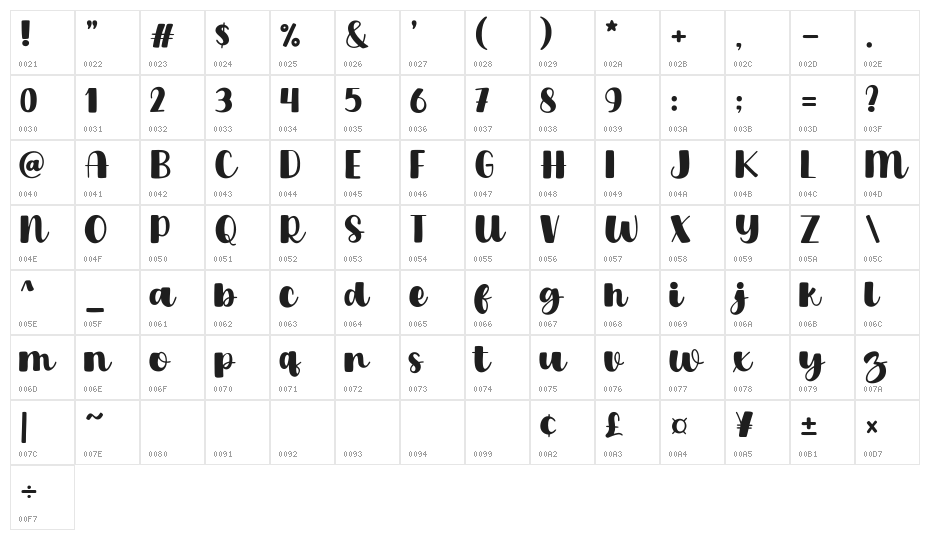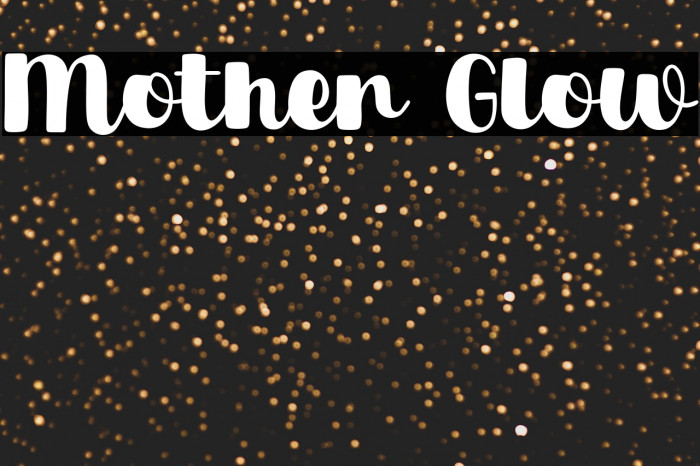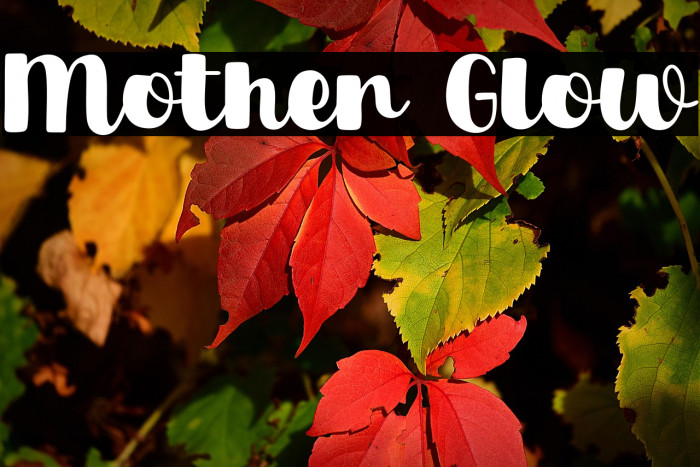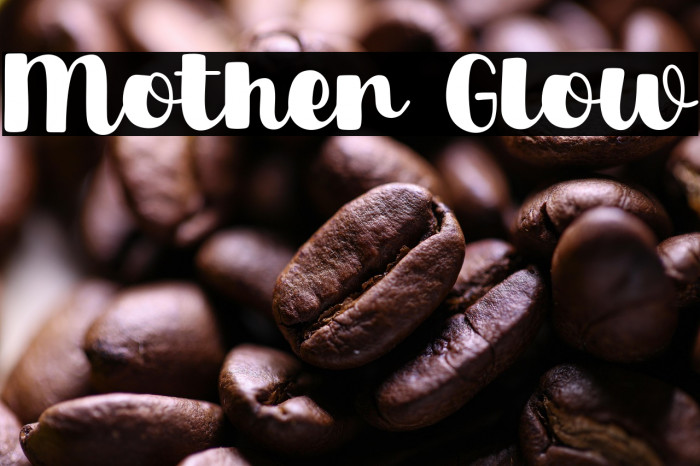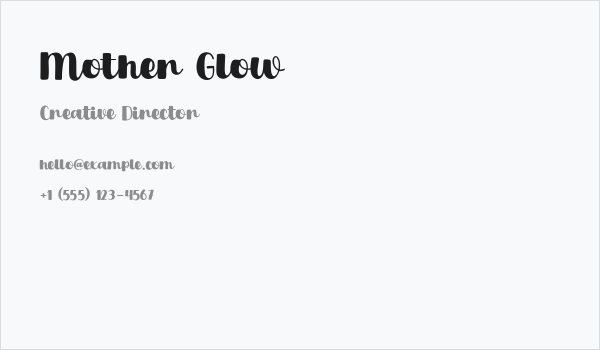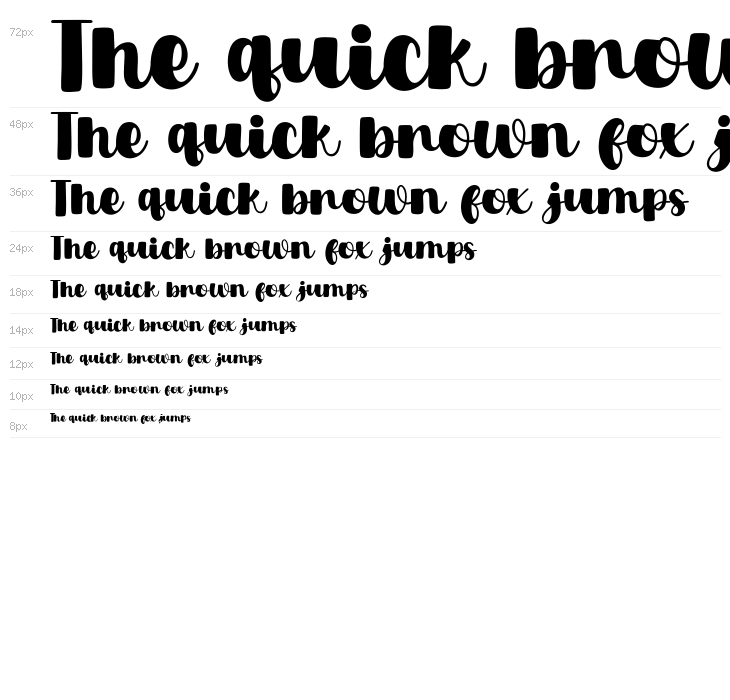
Mother Glow Font
Mother Glow Description
This font features a playful and bold script style with a modern twist. The characters are rounded and have a smooth flow, creating a sense of movement and energy. The uppercase letters are slightly more structured, while the lowercase letters exhibit a more cursive, handwritten feel. The numbers and special characters maintain the same boldness and playful style, ensuring consistency across all glyphs. This font is ideal for projects that require a friendly and approachable aesthetic.
| Proposed Projects | Ideal for branding, invitations, greeting cards, and playful headlines. |